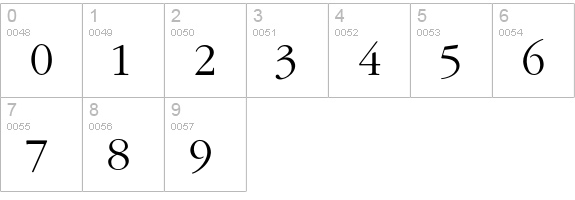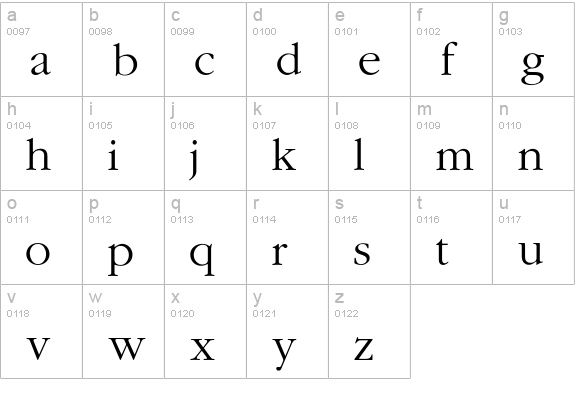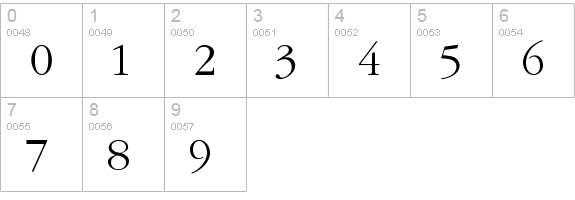
GaramondLight Font Details
GaramondLight font is a timeless classic that exudes elegance and sophistication. With its delicate serifs and graceful curves, this font is perfect for adding a touch of refinement to any project. The light weight of the font gives it a subtle and airy quality, making it ideal for conveying a sense of lightness and sophistication. What's even better is that GaramondLight font is completely free to download at FontsMarket.com. Now you can add this beautiful typeface to your design arsenal without breaking the bank. Whether you're working on a branding project, a wedding invitation, or a magazine layout, GaramondLight font is sure to elevate your design and make it stand out. So why wait? Download GaramondLight font today and start creating stunning designs with this elegant and timeless typeface.